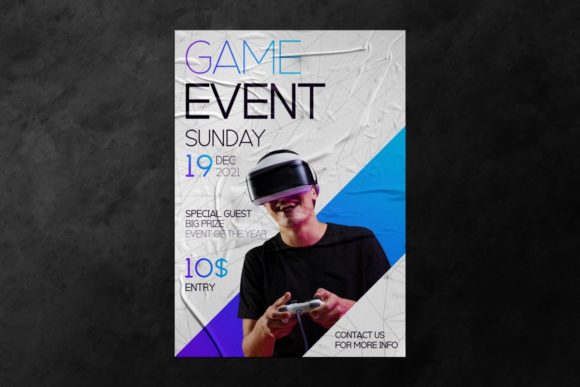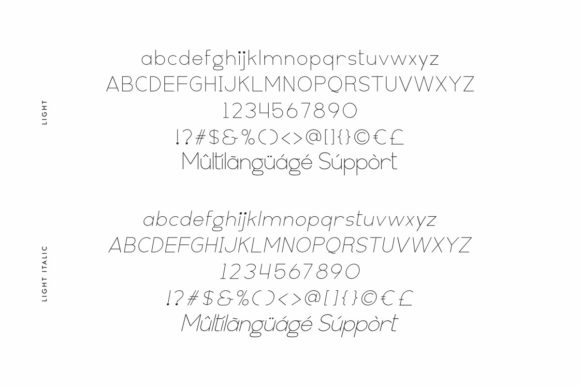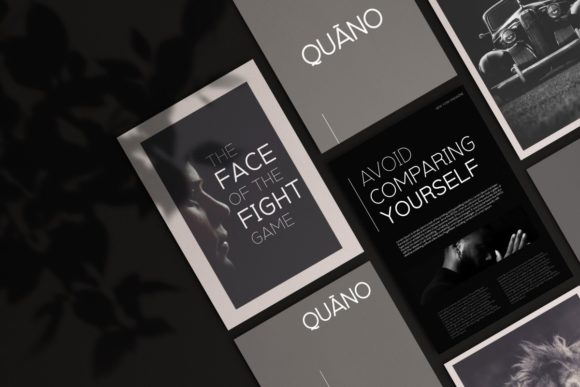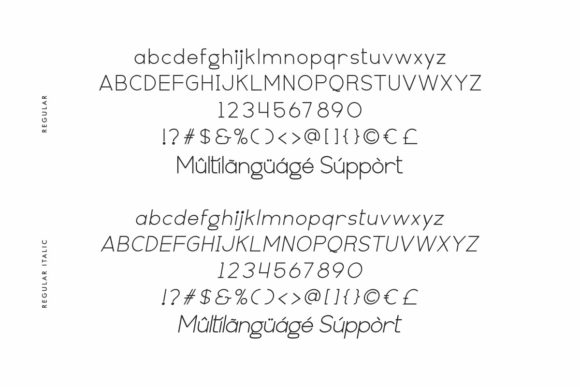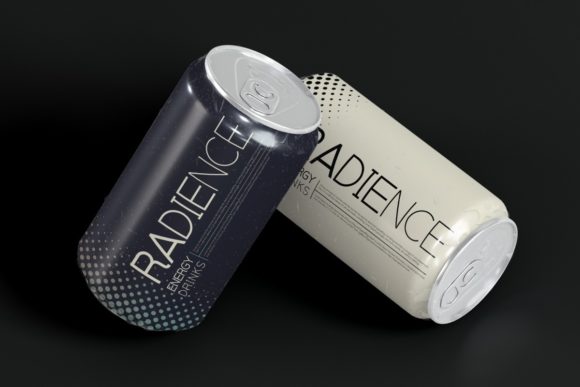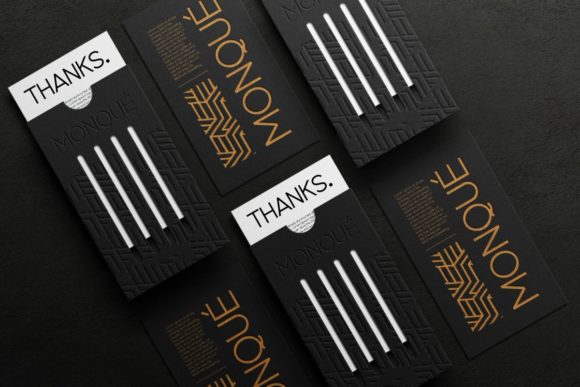
Cabriole Font: Elevate Your Designs with a Clean and Versatile Sans Serif Font
Are you a designer or crafter looking for a font that can elevate your creations and adapt to any topic or theme? Look no further than the Cabriole Font, a clean and sans serif font that is sure to become an incredible asset to your font library.
What is Cabriole Font?
Cabriole Font is a modern sans serif font designed to provide a clean and minimalist look to your designs. Its simplicity and versatility make it perfect for a wide range of applications, from digital media to print materials. The font’s clean lines and lack of embellishments ensure that your message is conveyed clearly and effectively, making it ideal for body text, headings, and titles.
Key Features of Cabriole Font
- Clean and Minimalist Design: Cabriole Font boasts a clean and minimalist design, making it perfect for modern designs that require a simple yet elegant look.
- Sans Serif: The font’s sans serif design ensures that your text is clear and easy to read, even at small font sizes.
- Versatile: Cabriole Font can be used for a wide range of applications, including digital media, print materials, and more.
- Highly Legible: The font’s clear lines and simple design make it highly legible, even at small font sizes.
Benefits of Using Cabriole Font
Cabriole Font offers a range of benefits that make it an excellent addition to your font library. Some of the key benefits include:
- Improved Readability: The font’s clean design and clear lines ensure that your text is easy to read, even for extended periods.
- Enhanced Visual Appeal: Cabriole Font’s minimalist design and elegant lines add a touch of sophistication to your designs, making them more visually appealing.
- Increased Versatility: The font’s versatility ensures that it can be used for a wide range of applications, from digital media to print materials.
- Time-Saving: With Cabriole Font, you can create professional-looking designs quickly and easily, saving you time and effort.
How to Use Cabriole Font
Cabriole Font is easy to use and can be incorporated into your designs in a variety of ways. Here are a few tips to get you started:
- Pair it with Other Fonts: Cabriole Font pairs well with other fonts, making it easy to create unique and visually appealing combinations.
- Use it for Body Text: The font’s high legibility makes it perfect for body text, ensuring that your message is conveyed clearly and effectively.
- Experiment with Font Sizes: Cabriole Font looks great at a range of font sizes, from small to large, making it perfect for headings and titles.
In conclusion, Cabriole Font is a clean and versatile sans serif font that is sure to elevate your designs and adapt to any topic or theme. Its simplicity, high legibility, and versatility make it an excellent addition to your font library. Whether you’re a designer or crafter, Cabriole Font is a must-have font that will help you create professional-looking designs quickly and easily.